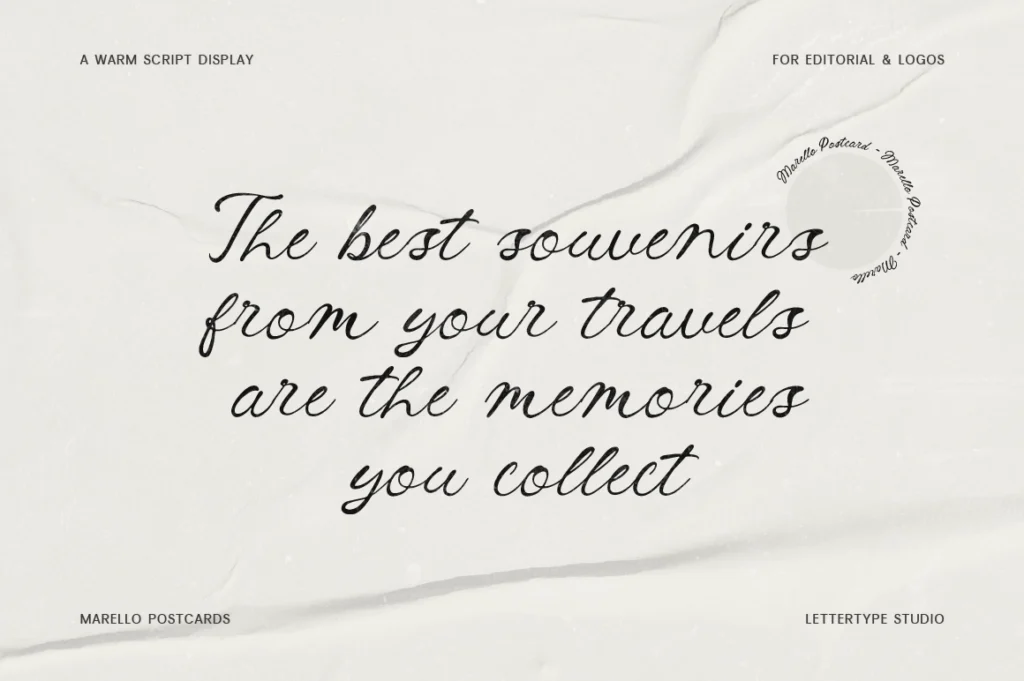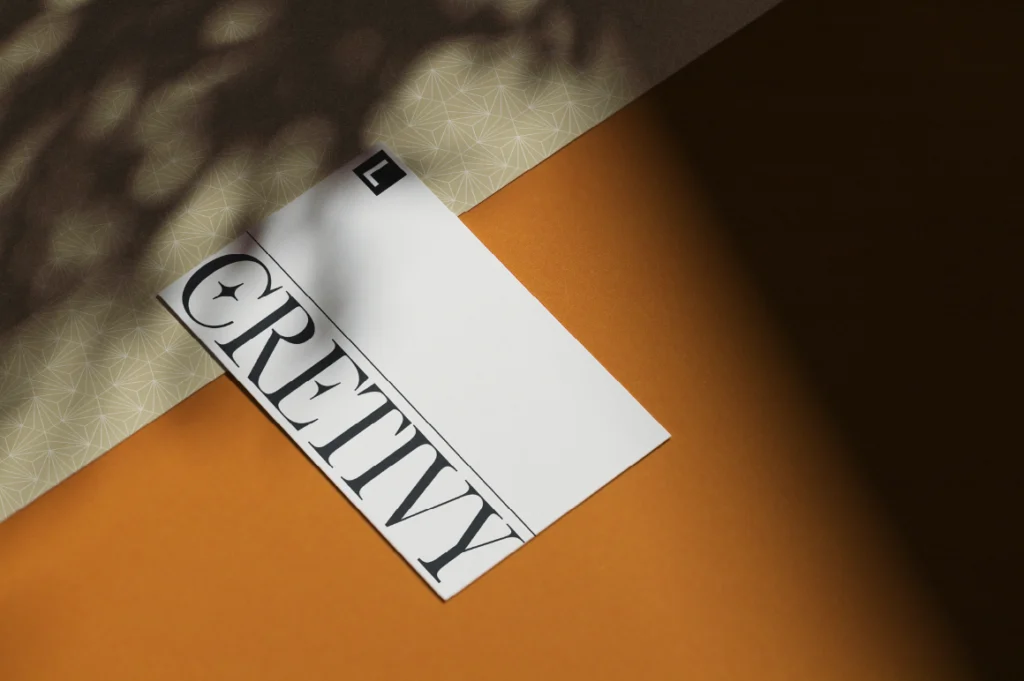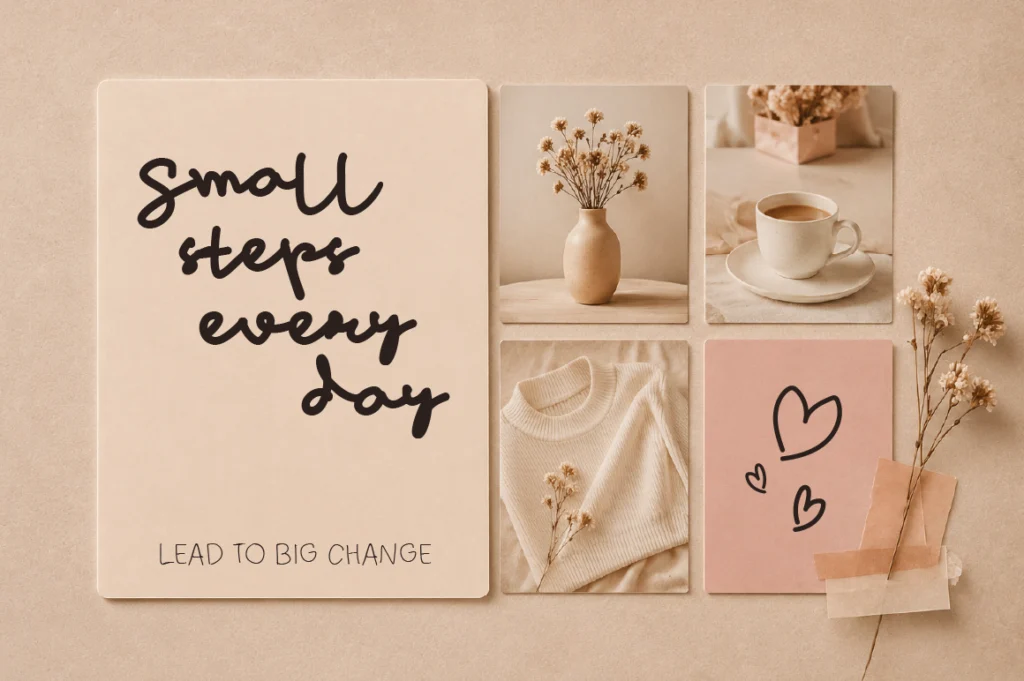
Best Fonts for Bakery Branding
Bakery Branding Fonts - Typography That Makes Every Brand Feel Fresh
⭐ Hero Font
Meadow Villager Club
Perfect for artisan bakeries, handmade bread brands, organic products, farmers markets, and rustic food packaging. Its warm personality instantly creates a handcrafted and authentic impression.
Supporting Fonts
Becaure
Ideal for premium pastry boxes, bakery labels, gift packaging, and elegant dessert branding.
Elfariany Duo
Perfect for signature bakery logos, cake boutiques, wedding cakes, and handcrafted dessert businesses.
Montegar
Excellent for modern bakeries, café concepts, premium menus, and editorial-style food branding.
Marello Postcards
Adds a nostalgic travel-inspired feeling that works beautifully for vintage bakeries, brunch cafés, and European-style pastry shops.
Best Fonts for Bakery Branding
Few businesses rely on emotion as much as bakeries. Long before customers taste fresh bread or pastries, they experience the aroma, the atmosphere, the packaging, and the visual identity. Typography plays a surprisingly important role in creating that experience. The right font can make a bakery feel handcrafted, luxurious, traditional, or delightfully modern.
In a competitive market filled with artisan bakeries, neighborhood cafés, dessert boutiques, and premium pastry brands, typography helps establish a memorable identity. Customers often associate thoughtful branding with product quality, making fonts an essential part of bakery marketing.
A successful bakery brand extends far beyond its logo. Typography appears on storefront signage, takeaway bags, bread wrappers, cake boxes, menus, coffee cups, loyalty cards, social media, and websites. Consistency across these touchpoints creates familiarity and strengthens customer trust.
For artisan bakeries that emphasize handcrafted products and natural ingredients, Meadow Villager Club is an outstanding choice. Its rustic character reflects warmth, authenticity, and craftsmanship, making it ideal for sourdough bakeries, organic bread brands, local farmers’ markets, and homemade pastry businesses.
Meadow Villager Club works beautifully for:
• Artisan bakery logos
• Bread packaging
• Organic flour branding
• Farmers’ market products
• Homemade food labels
Premium dessert brands often require a cleaner and more refined appearance. Becaure delivers elegant proportions without feeling overly formal. It performs exceptionally well for macaron boxes, chocolate packaging, premium cookies, and boutique pastry brands.
Becaure is ideal for:
• Premium pastry boxes
• Cookie packaging
• Dessert branding
• Luxury bakery labels
• Gift packaging
Some bakeries focus on celebration and personalization. Cake studios, wedding bakeries, and custom dessert businesses benefit from typography that feels elegant and personal. Elfariany Duo combines graceful serif typography with expressive script, creating beautiful branding for businesses built around special occasions.
Elfariany Duo is recommended for:
• Wedding cakes
• Cake boutiques
• Dessert studios
• Signature logos
• Luxury confectionery
Modern bakeries and café concepts often prefer sophisticated typography that blends well with contemporary interiors. Montegar creates an editorial-inspired atmosphere suitable for premium cafés, brunch restaurants, and urban bakery brands.
Montegar performs especially well for:
• Café menus
• Brunch restaurants
• Premium bakery websites
• Seasonal promotions
• Coffee and pastry branding
Vintage-inspired bakeries can create a memorable identity using Marello Postcards. Its nostalgic personality evokes European cafés, travel journals, and handcrafted experiences, making it perfect for boutique bakeries that celebrate tradition.
Conclusion
Typography is one of the most effective ingredients in successful bakery branding. The right fonts help create emotional connections, improve product presentation, and strengthen customer recognition. Whether your bakery focuses on handcrafted bread, elegant pastries, or premium desserts, fonts like Meadow Villager Club, Becaure, Elfariany Duo, Montegar, and Marello Postcards provide distinctive personalities that help your brand rise above the competition.